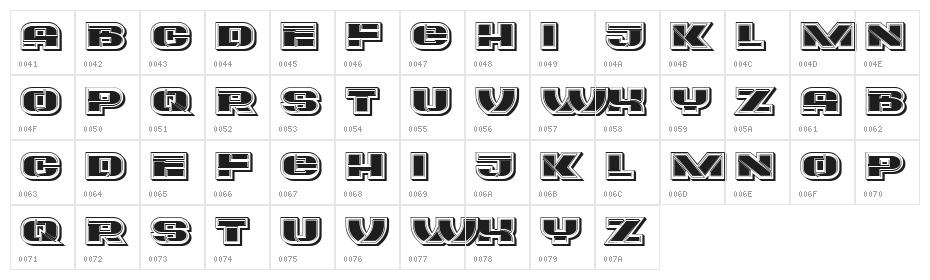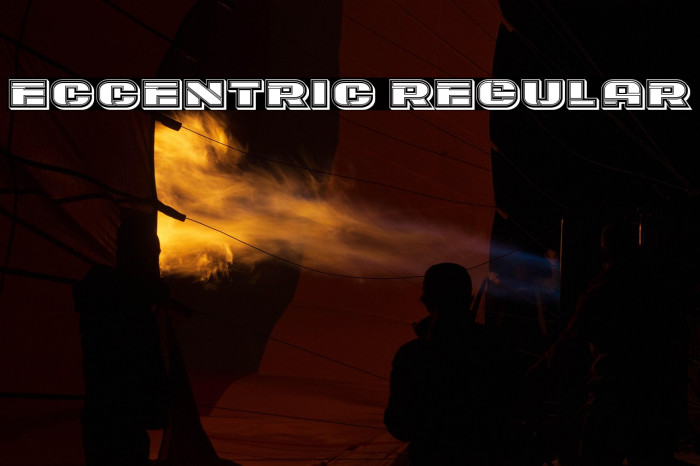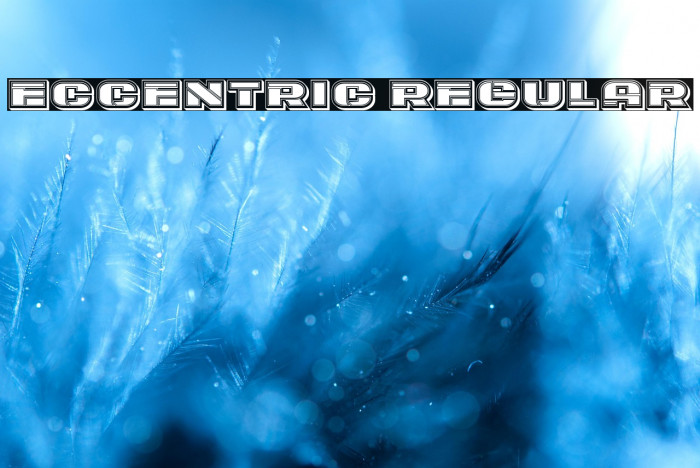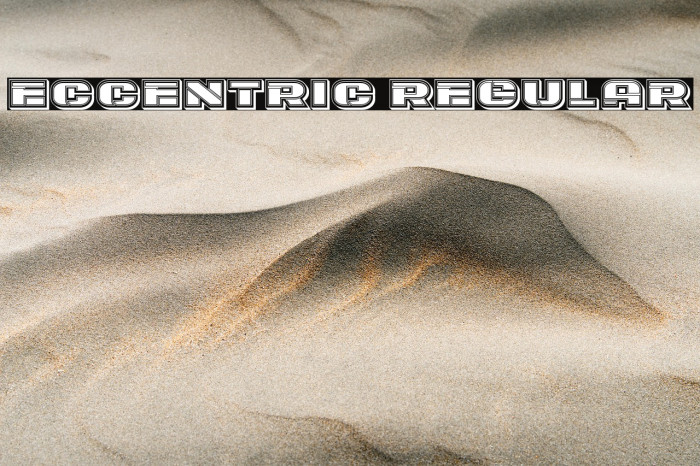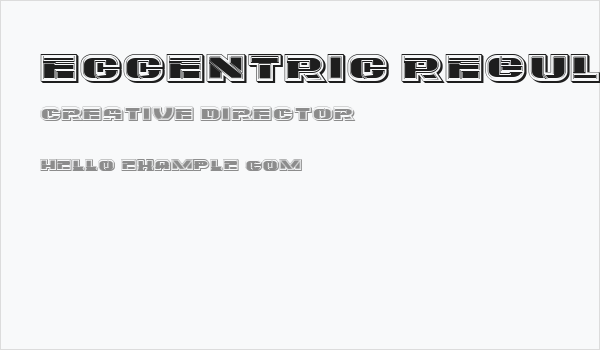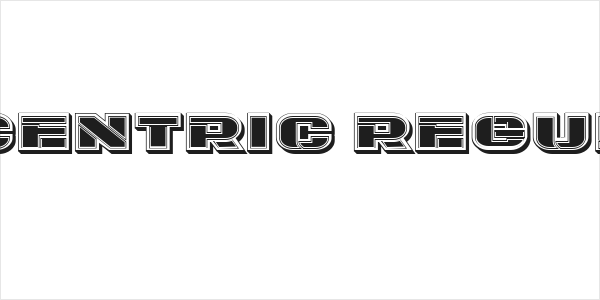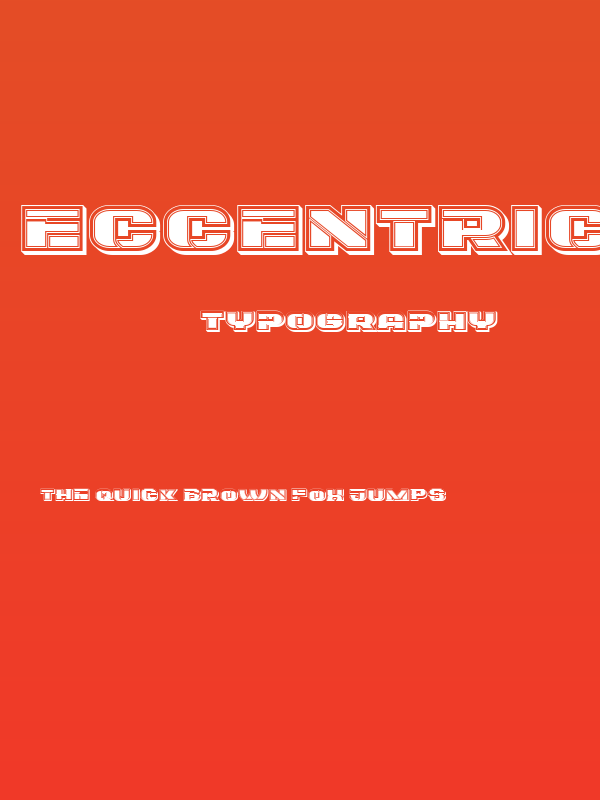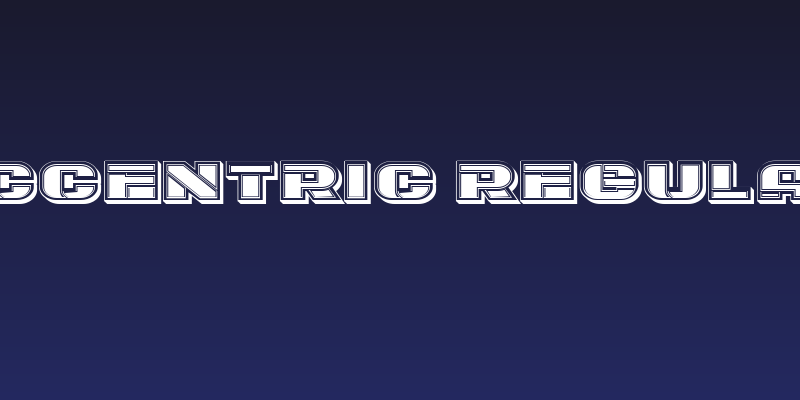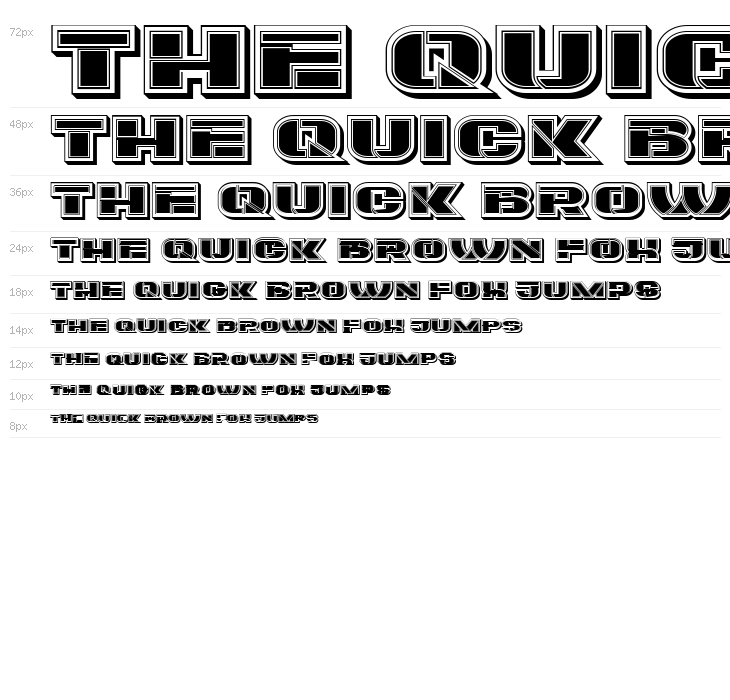
Eccentric Regular Font
Eccentric Regular Description
This font features a bold, decorative style with a distinct three-dimensional effect. The letters are outlined with a thick black border, creating a striking contrast against the inner white space. The geometric shapes and sharp angles give it a modern and futuristic appearance. Each character is uniquely designed, with some incorporating additional lines and patterns within the letterforms, enhancing the overall visual complexity. This font is highly stylized, making it ideal for attention-grabbing headlines and creative projects that require a strong visual impact.
Proposed ProjectsIdeal for posters, logos, video game titles, and any project requiring a bold, eye-catching typeface.